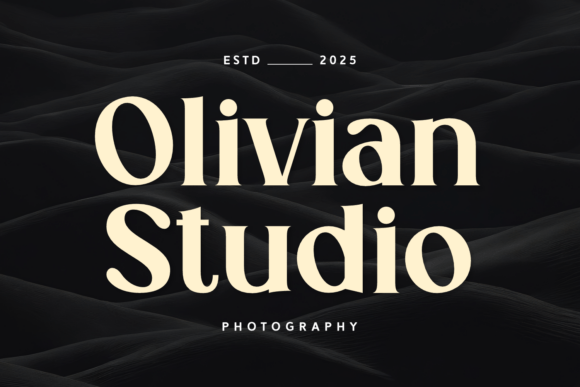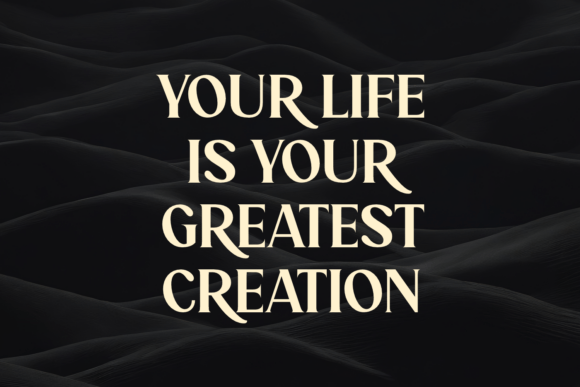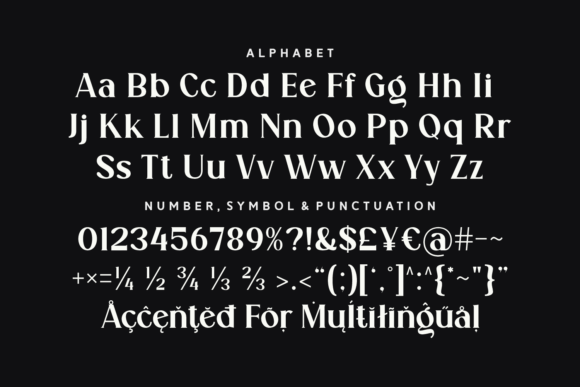
Introduction to Rovellia Font
Rovellia is a refined serif font with soft curves and elegant proportions.
It features modern shapes with classic roots, giving your design both a contemporary and timeless feel Perfect for logos, wedding designs, skincare branding, and social media quotes, Rovellia brings charm and sophistication to every letter.
Key Features of Rovellia Font
Why Choose Rovellia Font?